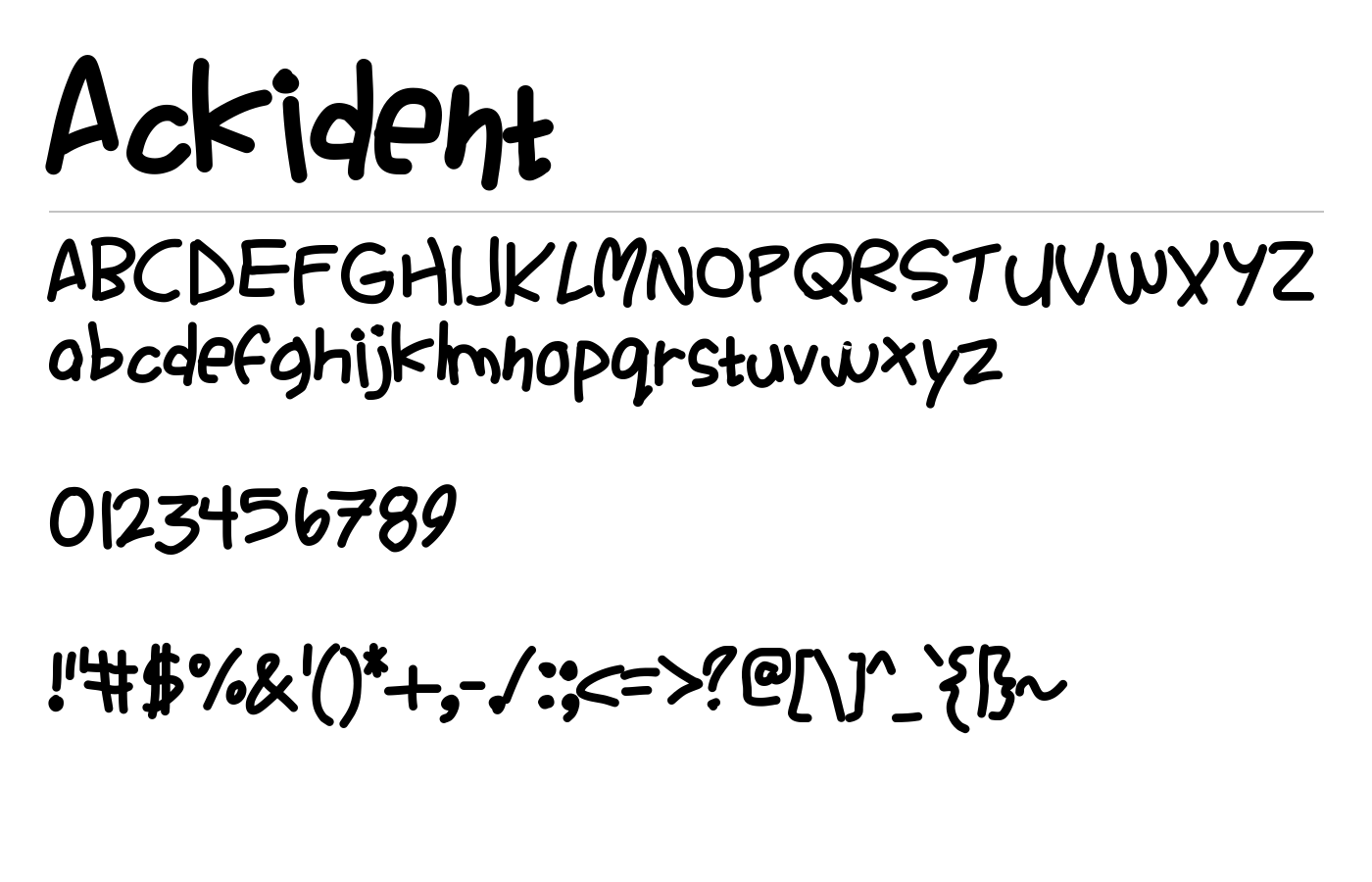
Ackident is a playful, informal handwritten sans-serif font that features rounded, uneven strokes and a casual, quirky style. Its lively letterforms evoke a friendly, approachable vibe, making it ideal for creative projects, children’s materials, or fun branding that seeks to convey warmth and personality. This font works well in headlines, logos, and any design where a personal, hand-drawn touch is desired.
Ackident Font
About Ackident Font